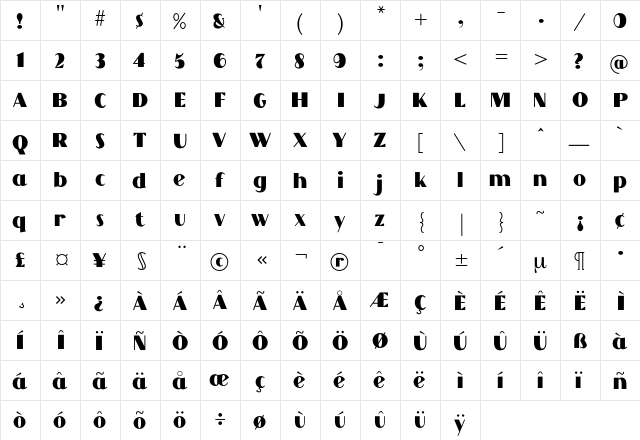
CamionBold Regular
Design Context for CamionBold Typeface
CamionBold is a composed and adaptable typeface that performs quietly and consistently across a wide range of design contexts. Its bold stroke weight gives it real presence on the page.